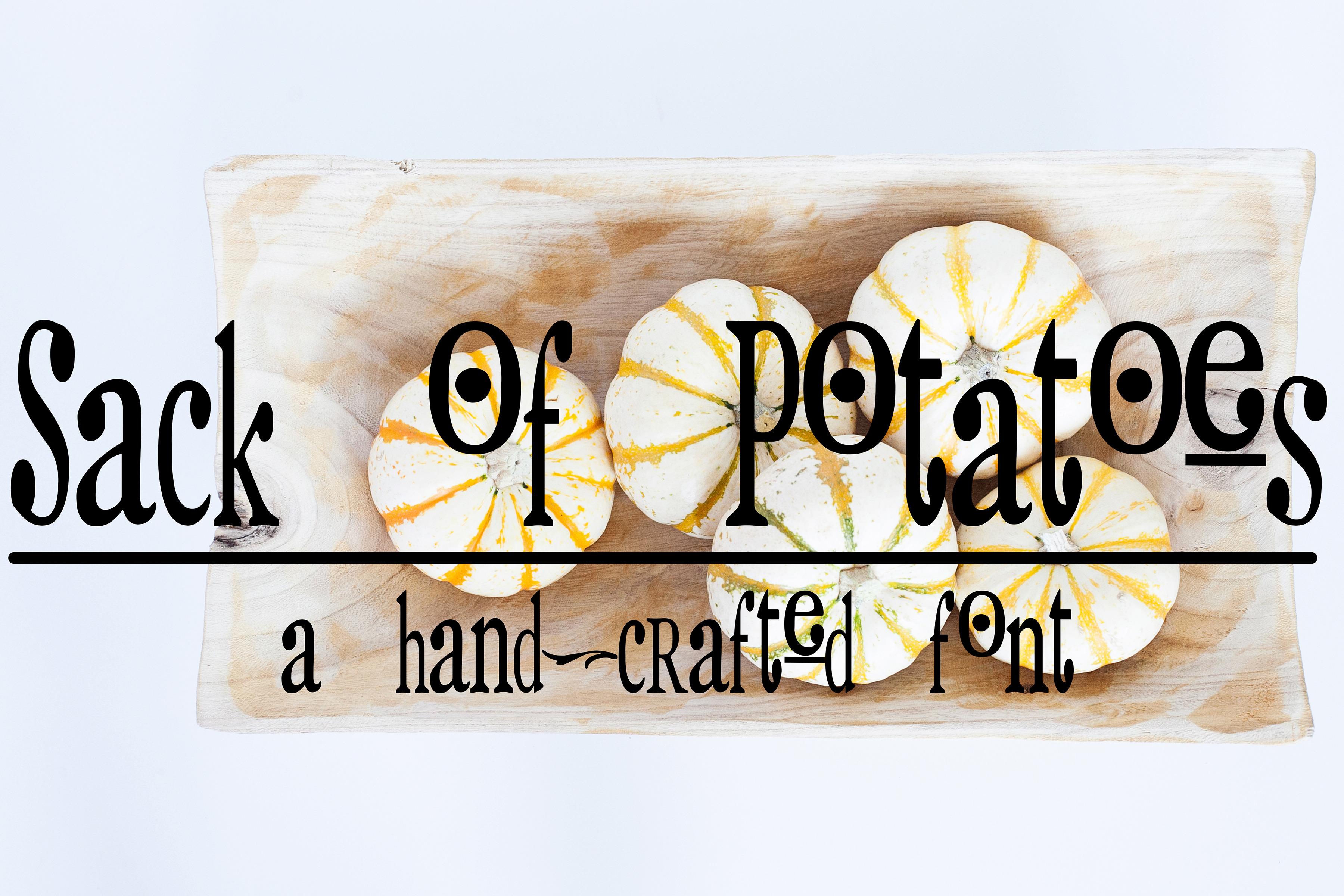
SACK OF POTATOES Hand Crafted Font
This simple, yet groovy font has a full alphabet, numbers, and symbols. Sack O Potatoes is available in a TTF file.